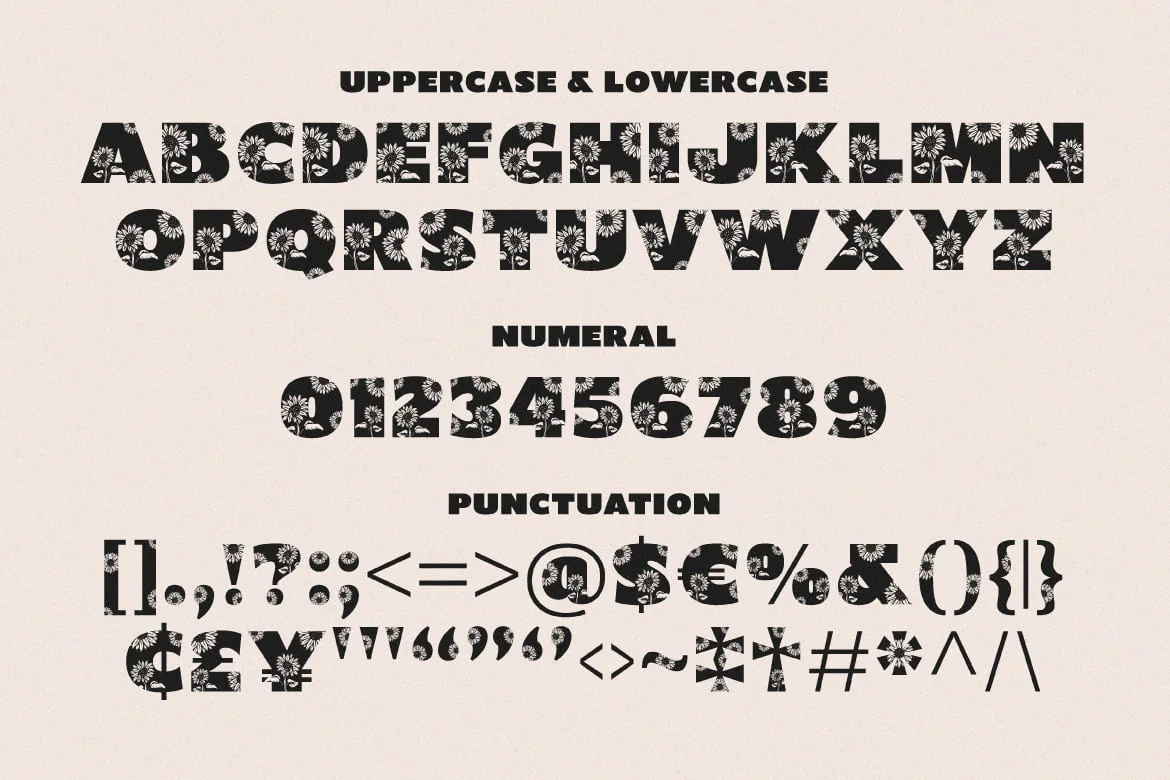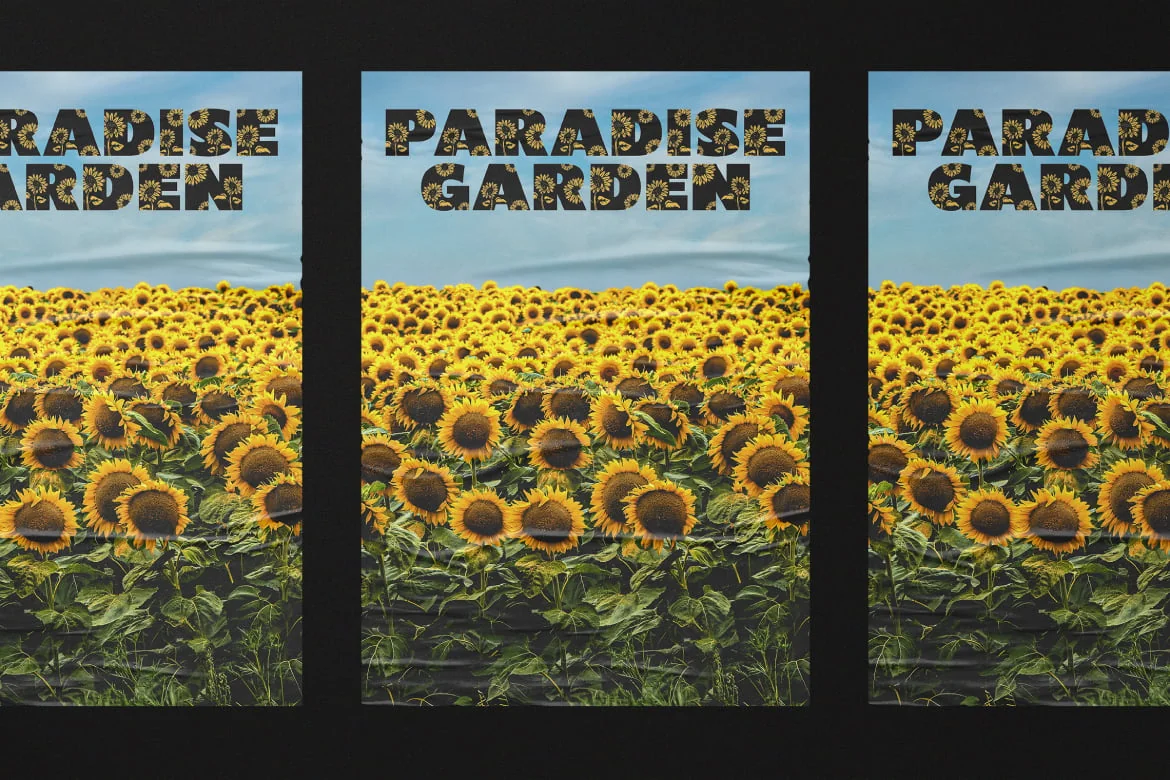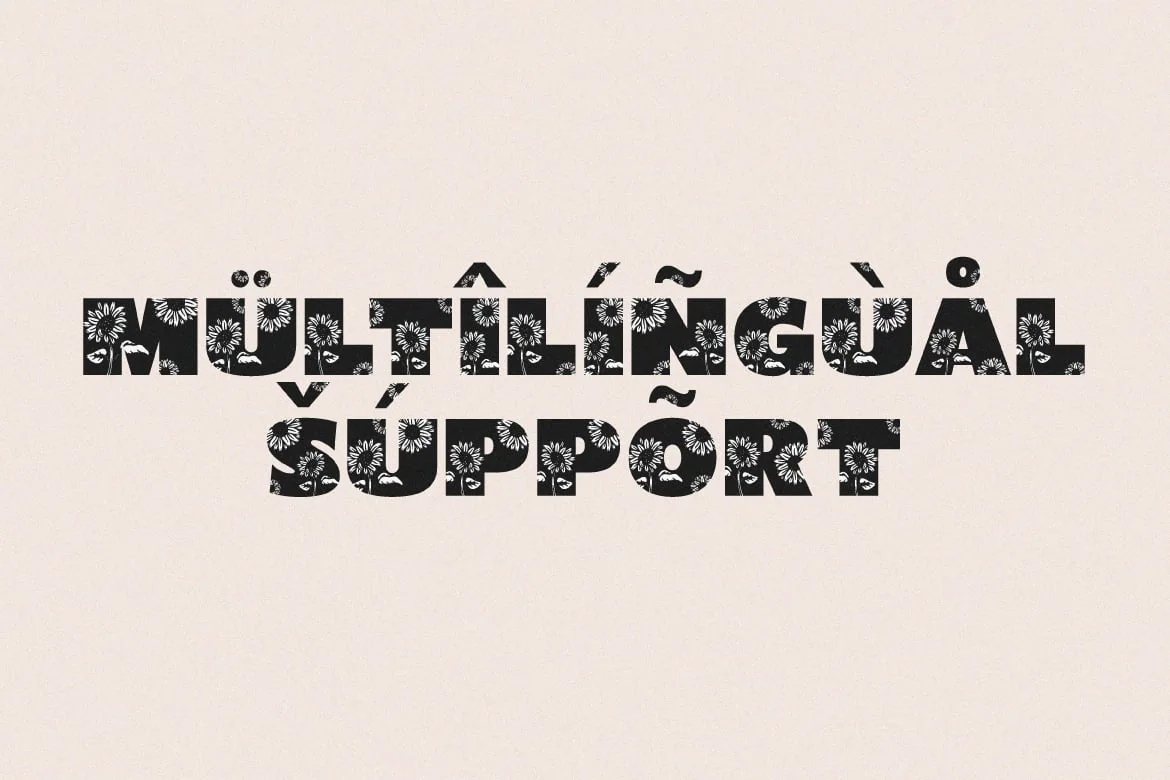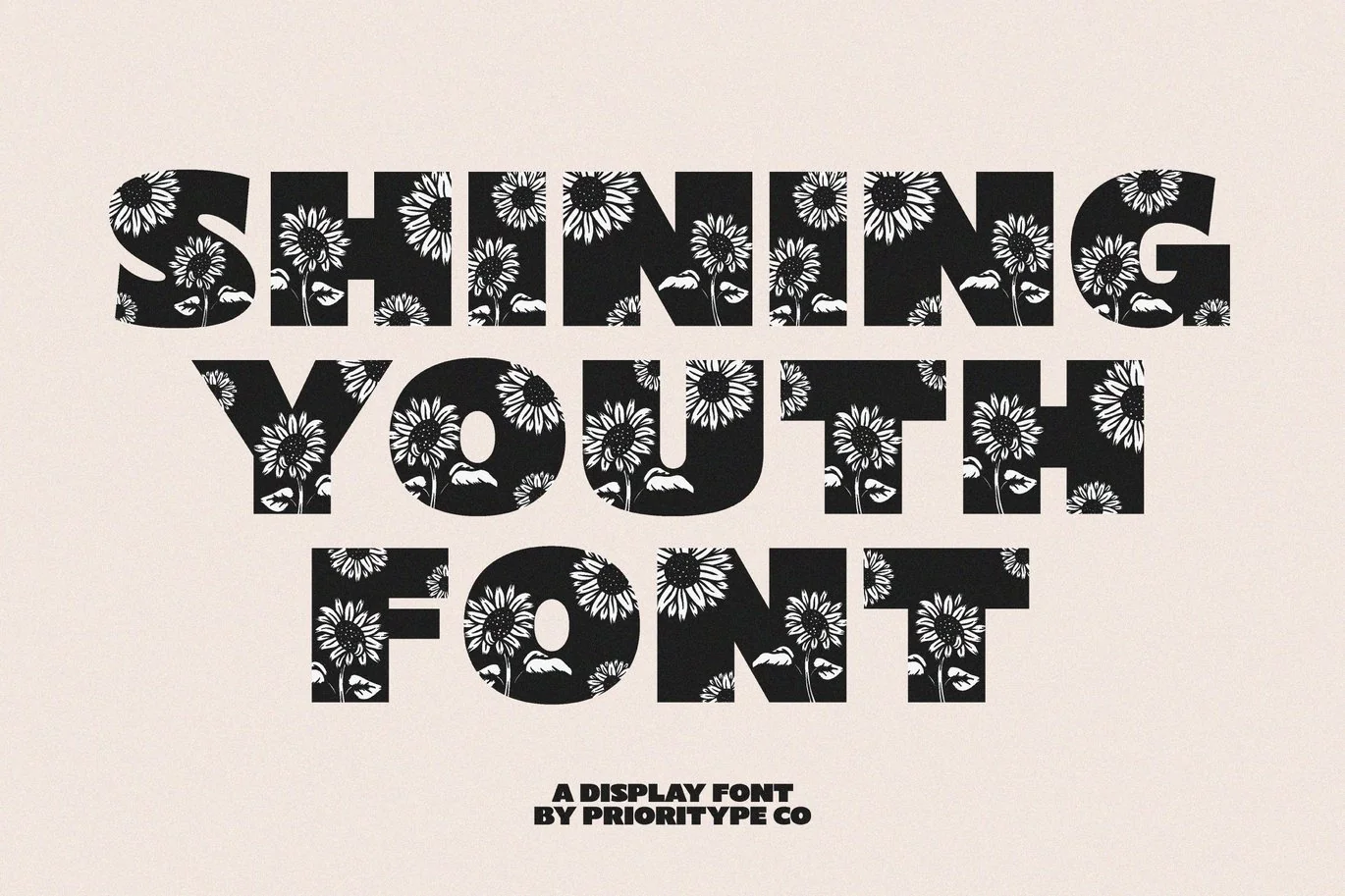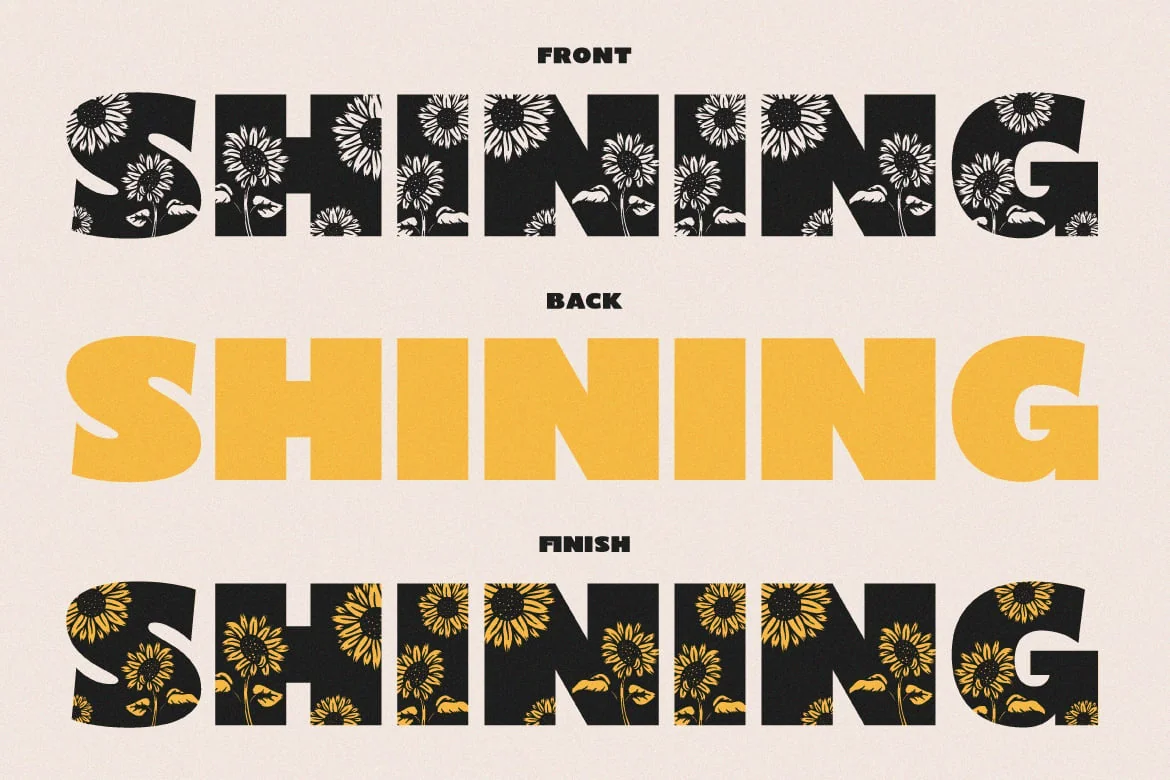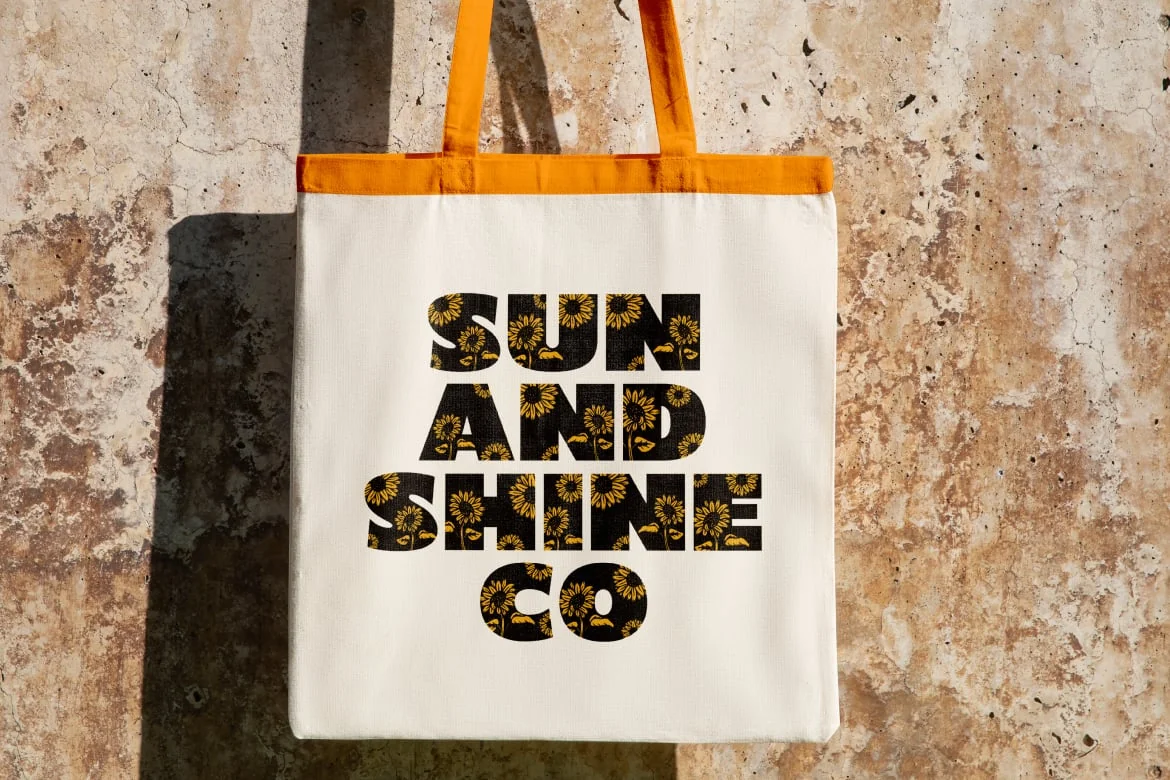
Shining Youth – Display Font
Shining Youth – Display Font by Prioritype Co.
“Shining Youth” is a bold typeface combined with a hand-drawn sunflower graphic. With two styles, namely Regular and Clean to make it easier for you to change colors to make it look more alive. Great for design projects such as posters or merchandise.
- Features: Uppercase, Lowercase, Numeral, Punctuation & Multilingual.
- Multilingual contained: Afrikaans, Albanian, Asu, Basque, Bemba, Bena, Breton, Catalan, Chiga, Cornish, Danish, Dutch, English, Estonian, Filipino, Finnish, French, Friulian, Galician, German, Gusii, Indonesian, Irish, Italian, Kabuverdianu, Kalenjin, Kinyarwanda, Luo, Luxembourgish, Luyia, Machame, Makhuwa-Meetto, Makonde, Malagasy, Manx, Morisyen, North Ndebele, Norwegian Bokmål, Norwegian Nynorsk, Nyankole, Oromo, Portuguese, Quechua, Romansh, Rombo, Rundi, Rwa, Samburu, Sango, Sangu, Scottish Gaelic, Sena, Shambala, Shona, Soga, Somali, Spanish, Swahili, Swedish, Swiss German, Taita, Teso, Uzbek (Latin), Volapük, Vunjo, Zulu.